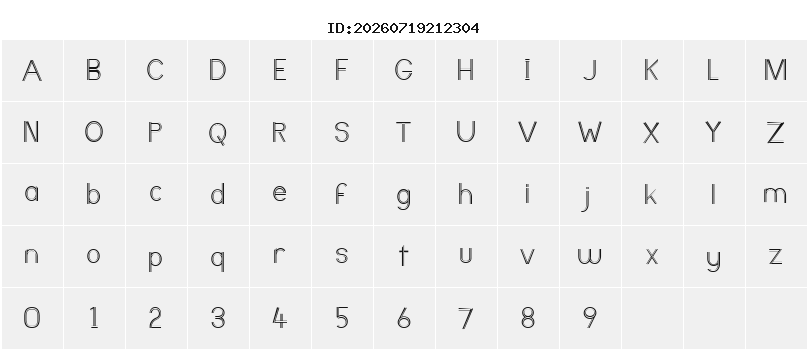
Ericott Preview
About Ericott.ttf
Ericott.ttf is a modern, elegant sans-serif font designed for ultimate readability and visual harmony. Perfect for branding, headlines, web design, and print materials.